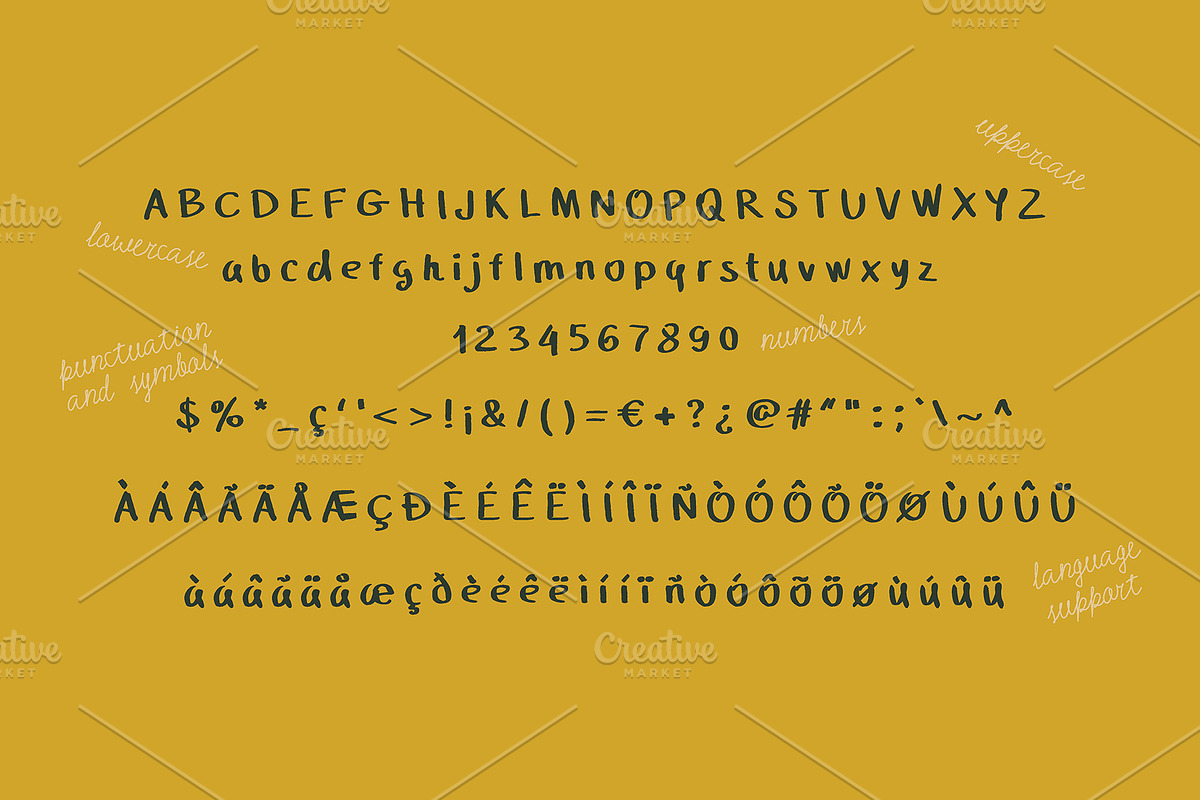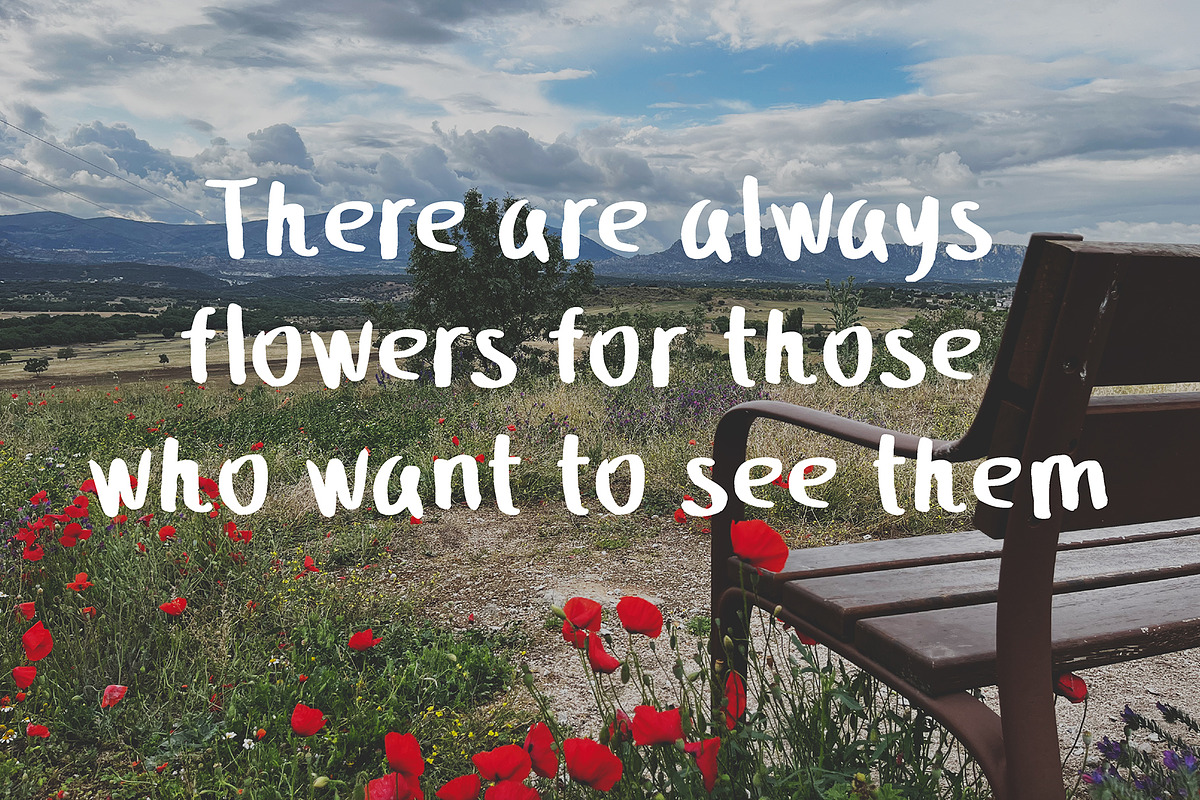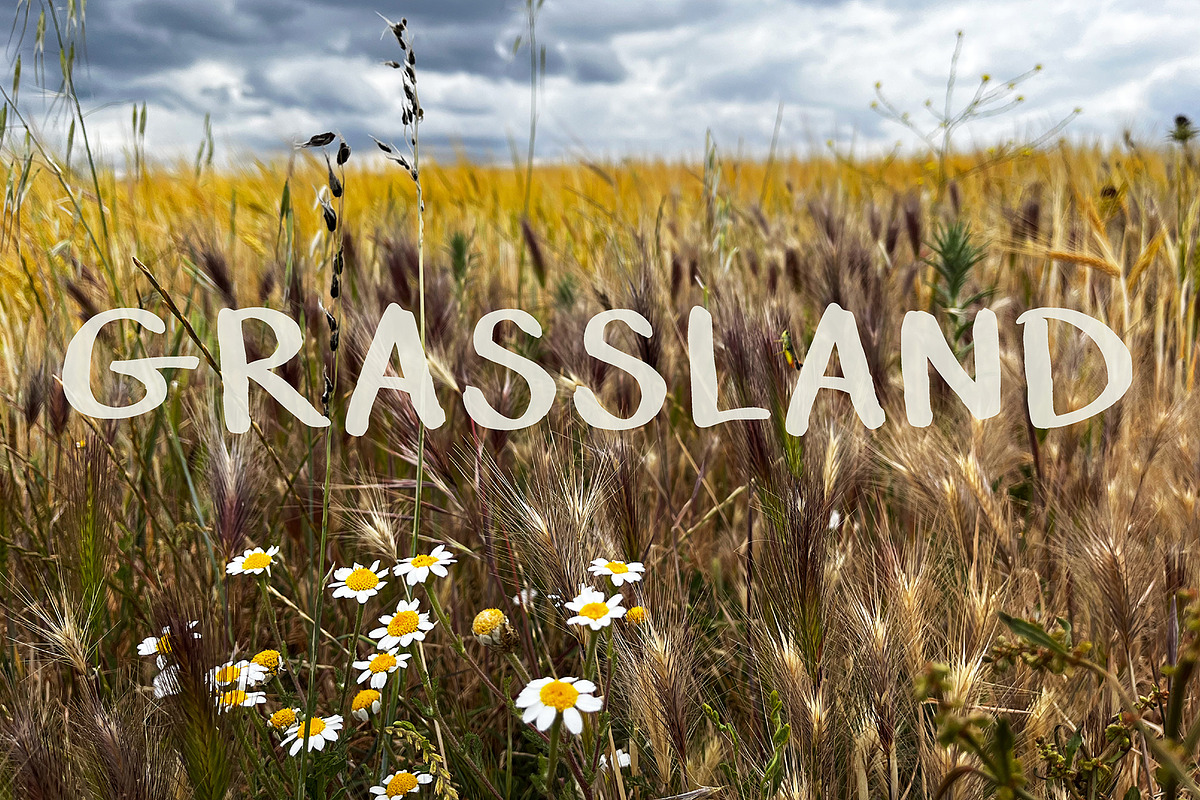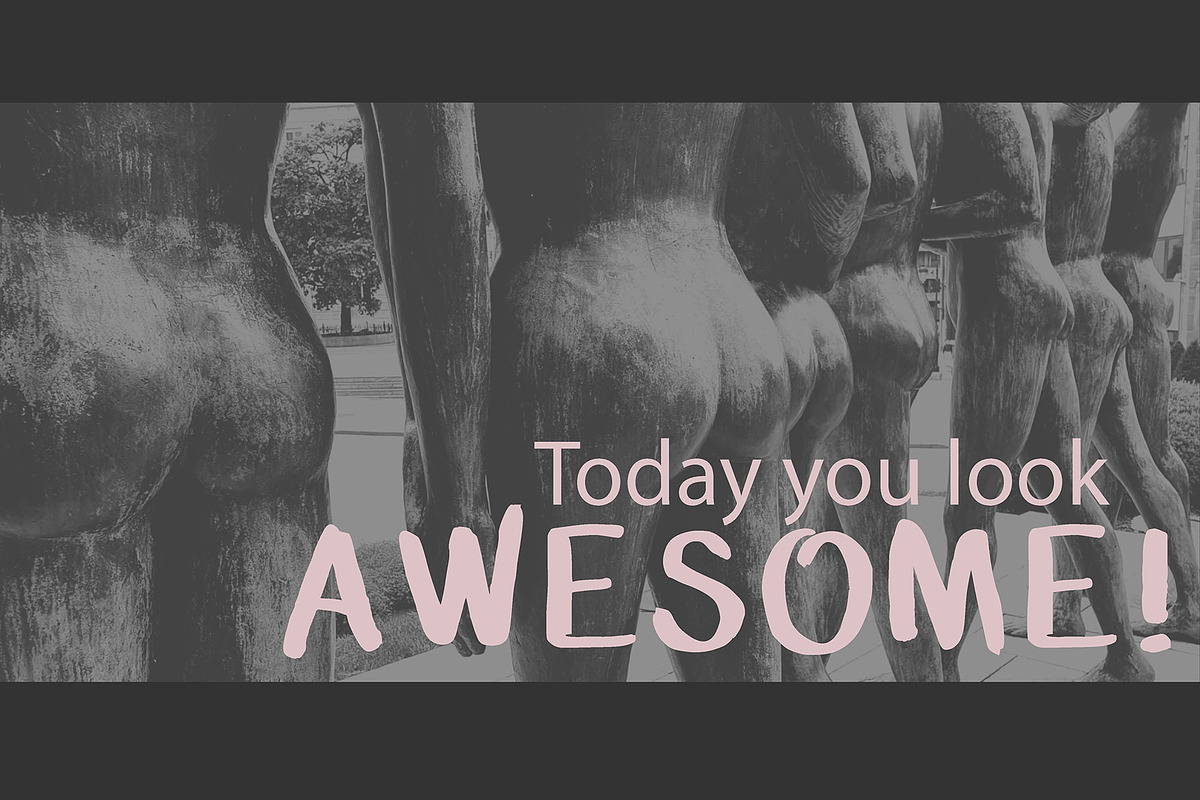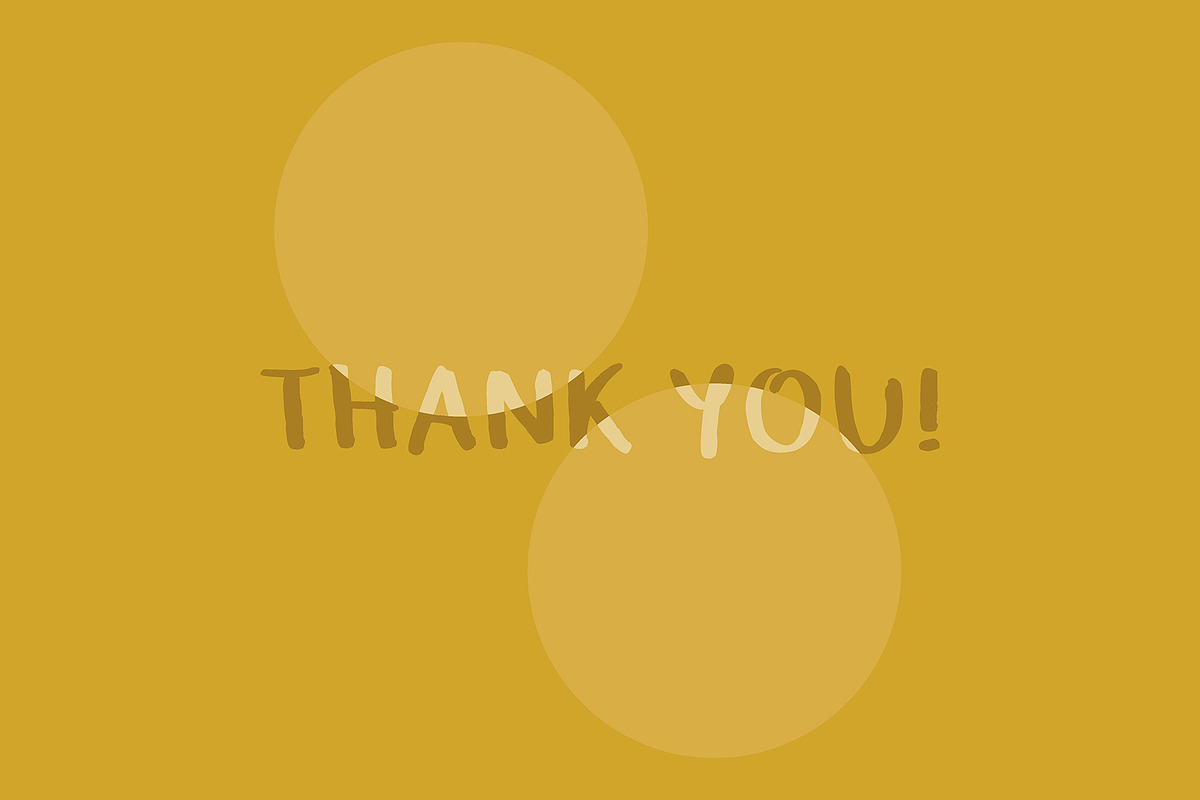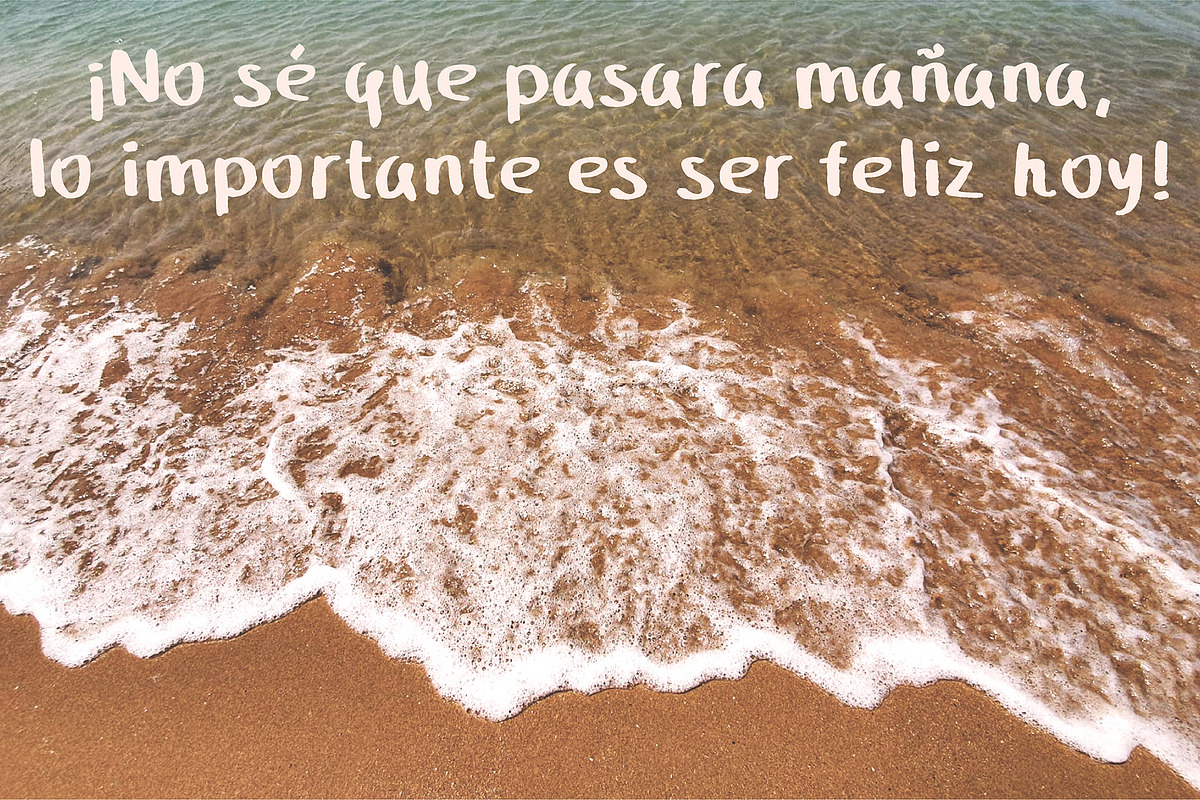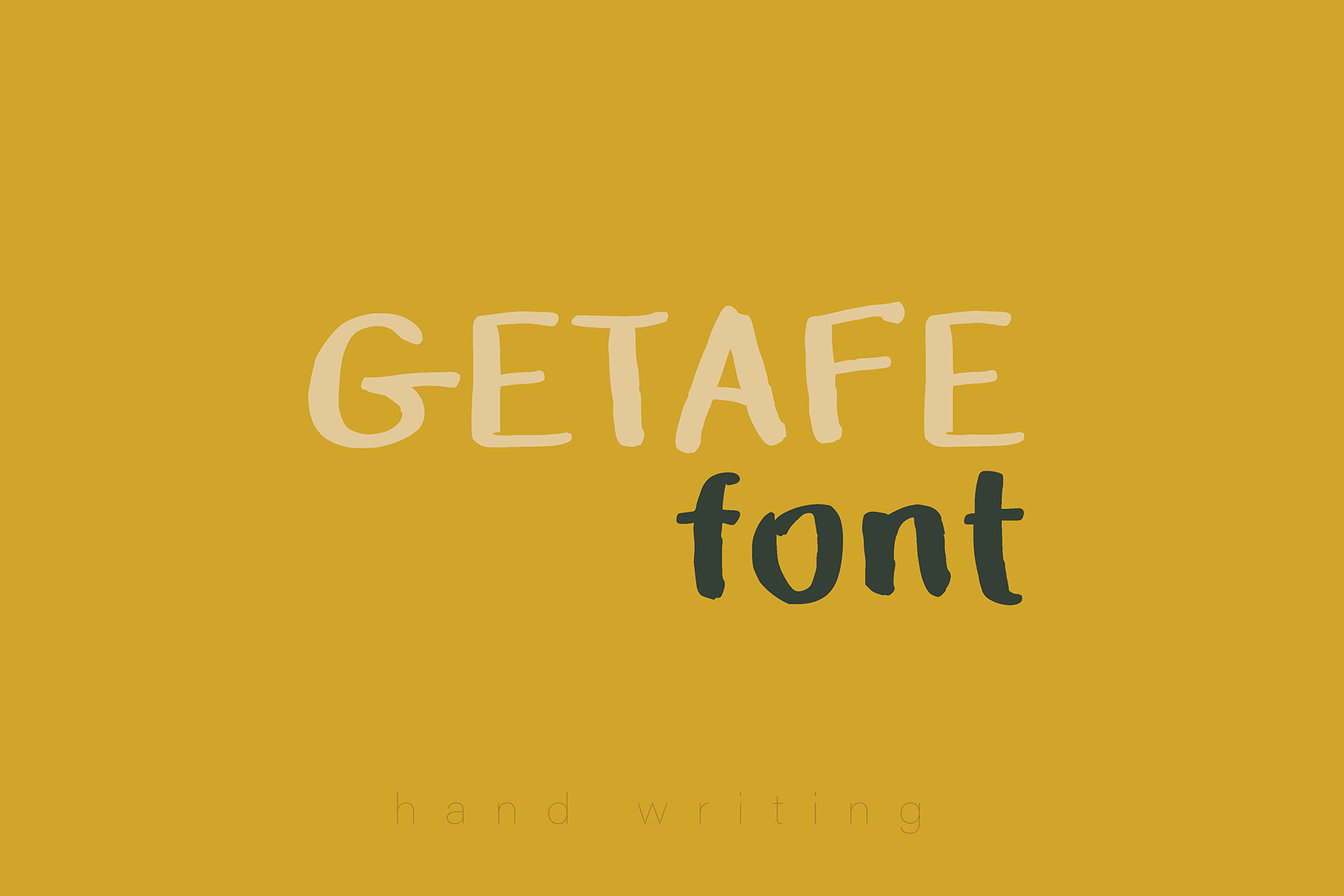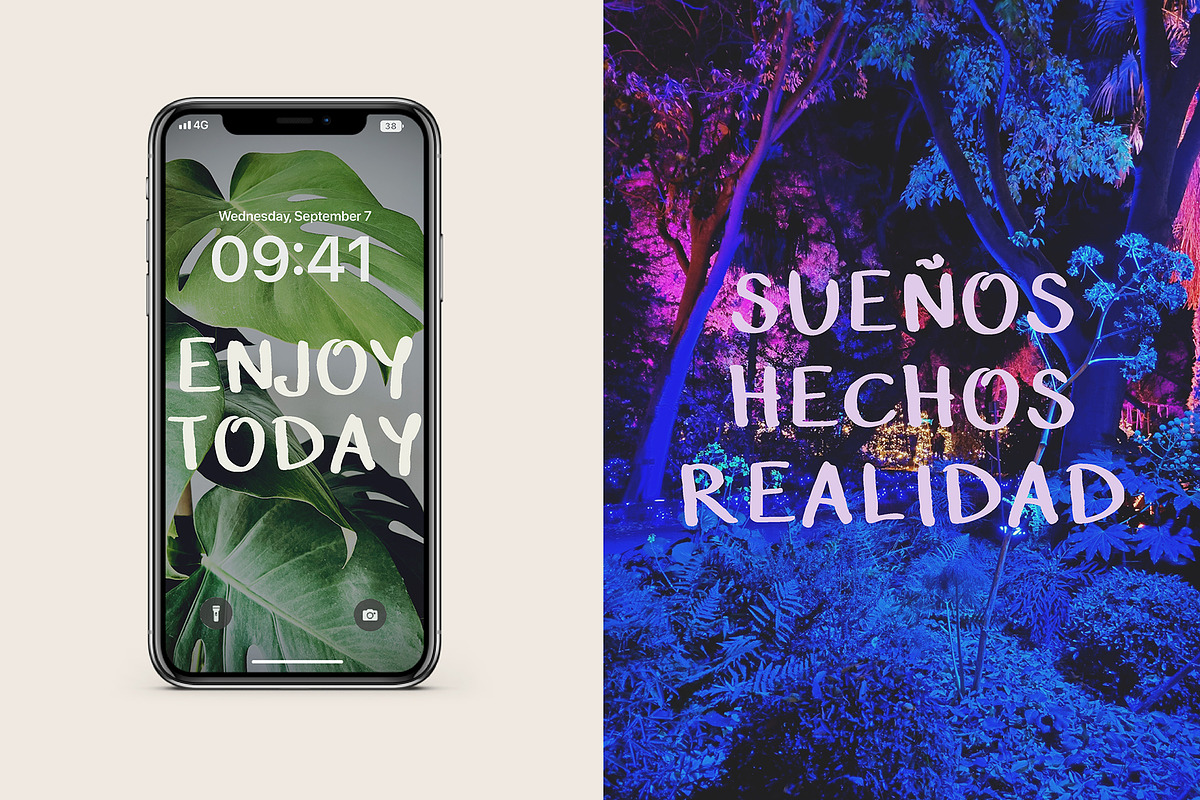
Getafe Font
Handwritten Brush Font
Say hello to a fun and playful handwritten brush font! With its casual, expressive style, this script font is perfect for logos, headlines, packaging design, posters, social media graphics, and all kinds of creative projects.
Easygoing and full of character, it will add a personal handwritten touch to your designs.